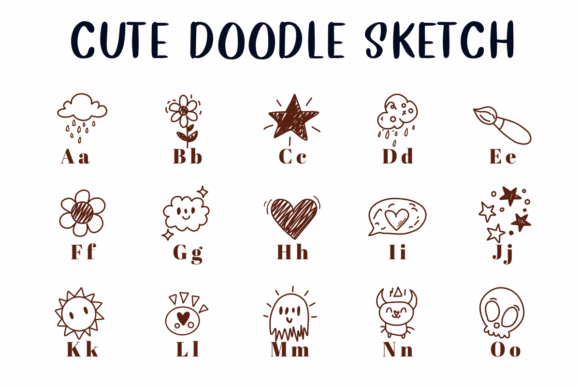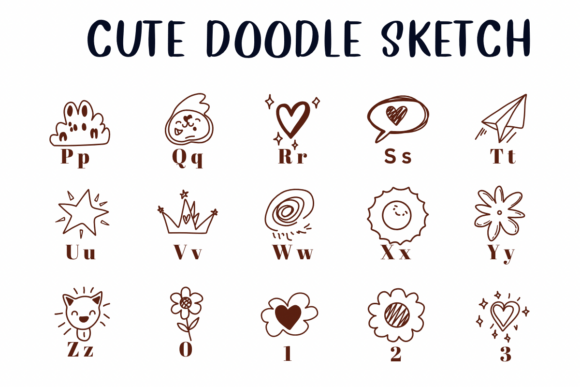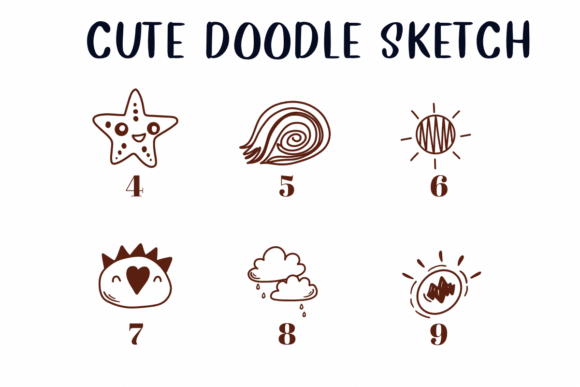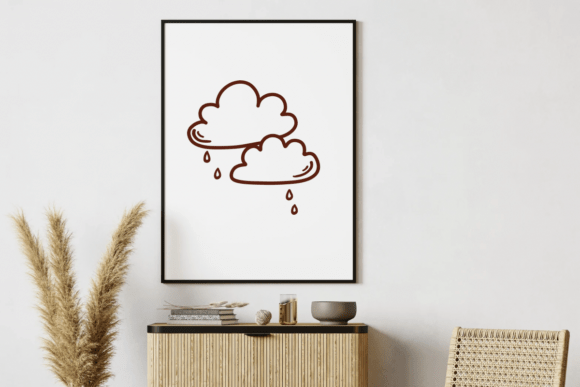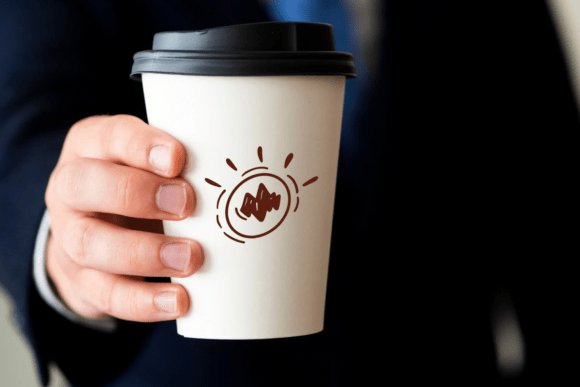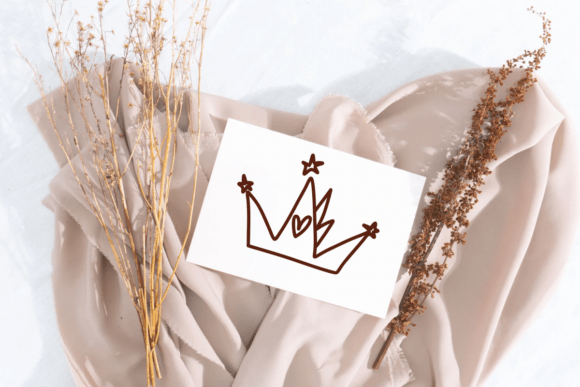
Cute Doodle Sketch Font: Add Whimsy and Playfulness to Your Designs
Are you looking for a font that can add a touch of whimsy and playfulness to your designs? Look no further than the Cute Doodle Sketch Font! This delightful dingbats font is packed with a wide range of playful hand-drawn icons that can instantly elevate your creative projects. From stars and suns to skulls, clouds, and paintbrushes, this font is perfect for designers and crafters who want to add a dash of personality to their work.
What is Cute Doodle Sketch Font?
Cute Doodle Sketch Font is a unique and charming dingbats font that features a collection of hand-drawn icons. These icons are designed to be playful, fun, and quirky, making them perfect for a wide range of creative projects. The font includes a variety of icons, from simple shapes like stars and hearts to more complex illustrations like skulls and paintbrushes.
Key Features of Cute Doodle Sketch Font
- Playful hand-drawn icons: The font features a wide range of hand-drawn icons that are designed to be playful and fun.
- Whimsical dingbats font: The font is a dingbats font, which means it’s perfect for adding icons and illustrations to your designs.
- Instant charm and energy: The icons in this font are designed to add instant charm and energy to your designs.
- Perfect for kids’ designs: The font is perfect for designers who create materials for kids, such as children’s books, educational resources, and activity sheets.
- Versatile: The font can be used for a wide range of creative projects, including bullet journals, stickers, social media graphics, and classroom materials.
Uses for Cute Doodle Sketch Font
Cute Doodle Sketch Font is a versatile font that can be used for a wide range of creative projects. Here are some ideas to get you started:
- Kids’ designs: Use the font to create fun and engaging materials for kids, such as children’s books, activity sheets, and educational resources.
- Bullet journals: Add a touch of whimsy to your bullet journal with the icons in this font.
- Stickers: Use the font to create custom stickers for your bullet journal or other creative projects.
- Social media graphics: Add a dash of personality to your social media graphics with the icons in this font.
- Classroom materials: Use the font to create engaging and interactive classroom materials, such as worksheets, posters, and activity sheets.
Benefits of Using Cute Doodle Sketch Font
There are many benefits to using Cute Doodle Sketch Font in your designs. Here are a few:
- Adds personality: The font adds a touch of personality and whimsy to your designs.
- Engages audiences: The playful icons in this font can help engage your audience and make your designs more interactive.
- Versatile: The font can be used for a wide range of creative projects, making it a great addition to your design toolkit.
Tips for Using Cute Doodle Sketch Font
Here are a few tips for using Cute Doodle Sketch Font in your designs:
- Experiment with different icons: The font includes a wide range of icons, so experiment with different ones to find the ones that work best for your design.
- Use a mix of icons and text: Use a mix of icons and text to create visually interesting designs.
- Play with colors and fonts: Experiment with different colors and fonts to find the combination that works best for your design.
Cute Doodle Sketch Font is a delightful dingbats font that can add a touch of whimsy and playfulness to your designs. With its wide range of playful hand-drawn icons, this font is perfect for designers and crafters who want to add a dash of personality to their work. Whether you’re creating materials for kids, bullet journals, stickers, social media graphics, or classroom materials, this font is sure to make your visuals pop with personality.